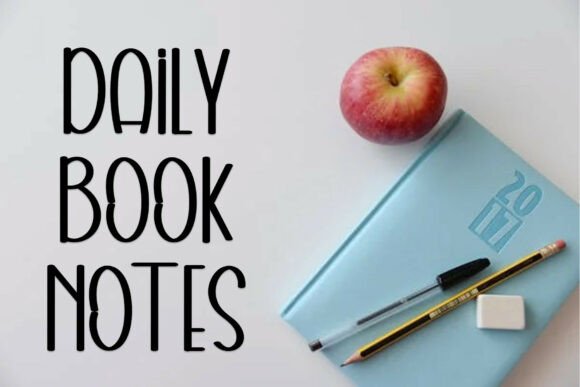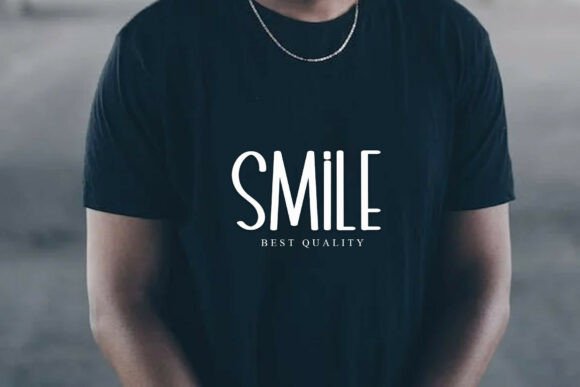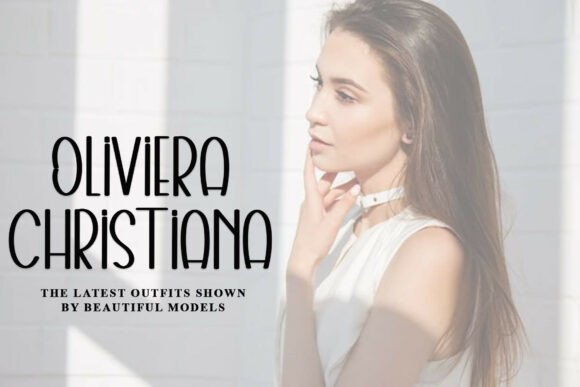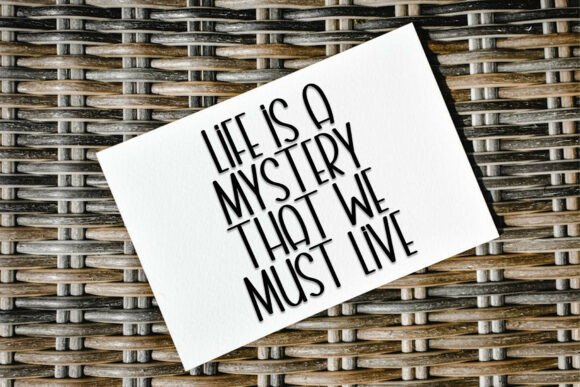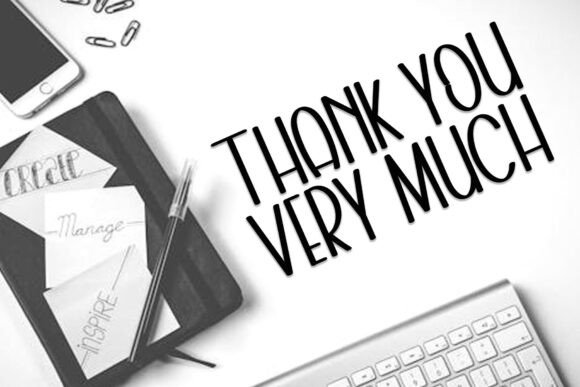
Introducing Hangout Font: The Perfect Blend of Casual and Contemporary
Say hello to Hangout, a clean and modern display font that’s taking the design world by storm. With its relaxed personality and tall, rounded letters, Hangout strikes the perfect balance between casual and contemporary, making it an ideal choice for a wide range of design projects.
The Perfect Font for Social Media Graphics
In today’s digital age, social media graphics are an essential part of any brand’s online presence. With Hangout, you can create stunning graphics that capture the attention of your audience and leave a lasting impression. Its clean and modern design makes it perfect for creating engaging social media posts, Instagram stories, and Facebook graphics.
Whether you’re a small business owner, a social media influencer, or a graphic designer, Hangout provides the perfect combination of style and versatility. Its tall, rounded letters add a touch of elegance to any design, making it perfect for creating professional-looking graphics that stand out from the crowd.
Event Posters and Lifestyle Branding
Hangout is not just limited to social media graphics. Its versatility makes it an excellent choice for event posters, flyers, and brochures. Whether you’re promoting a music festival, a fashion show, or a product launch, Hangout’s clean and modern design ensures that your event poster stands out and grabs the attention of your target audience.
In addition to event posters, Hangout is also perfect for lifestyle branding. Its relaxed personality and casual vibe make it an excellent choice for brands that want to convey a laid-back and approachable image. Whether you’re a fashion brand, a food blogger, or a travel company, Hangout provides the perfect font to create a consistent brand identity.
Cafe Menus and Food Branding
Hangout’s versatility doesn’t stop there. Its clean and modern design makes it an excellent choice for cafe menus, food branding, and restaurant menus. Whether you’re a coffee shop owner, a bakery, or a restaurant, Hangout provides the perfect font to create a visually appealing menu that showcases your products.
Its tall, rounded letters add a touch of warmth and elegance to any menu, making it perfect for creating a welcoming and inviting atmosphere. Whether you’re serving coffee, pastries, or gourmet meals, Hangout ensures that your menu stands out and leaves a lasting impression on your customers.
Key Features of Hangout Font
- Clean and Modern Design: Hangout’s clean and modern design makes it perfect for a wide range of design projects, from social media graphics to event posters and cafe menus.
- Relaxed Personality: Hangout’s relaxed personality and casual vibe make it an excellent choice for brands that want to convey a laid-back and approachable image.
- Tall, Rounded Letters: Hangout’s tall, rounded letters add a touch of elegance and sophistication to any design, making it perfect for creating professional-looking graphics.
- Versatile: Hangout is a versatile font that’s suitable for a wide range of design projects, from social media graphics to event posters, lifestyle branding, and cafe menus.
Why Choose Hangout Font?
With so many fonts available, why choose Hangout? Here are just a few reasons why Hangout stands out from the crowd:
- Unique Design: Hangout’s unique design makes it stand out from other fonts, ensuring that your designs are always noticed.
- Easy to Read: Hangout’s clean and modern design makes it easy to read, even at small font sizes.
- Customizable: Hangout is highly customizable, allowing you to adjust the font size, color, and style to suit your design needs.
In conclusion, Hangout is a versatile and stylish font that’s perfect for designers and crafters looking to add a touch of elegance and sophistication to their designs. Its clean and modern design, relaxed personality, and tall, rounded letters make it an excellent choice for a wide range of design projects, from social media graphics to event posters, lifestyle branding, and cafe menus.